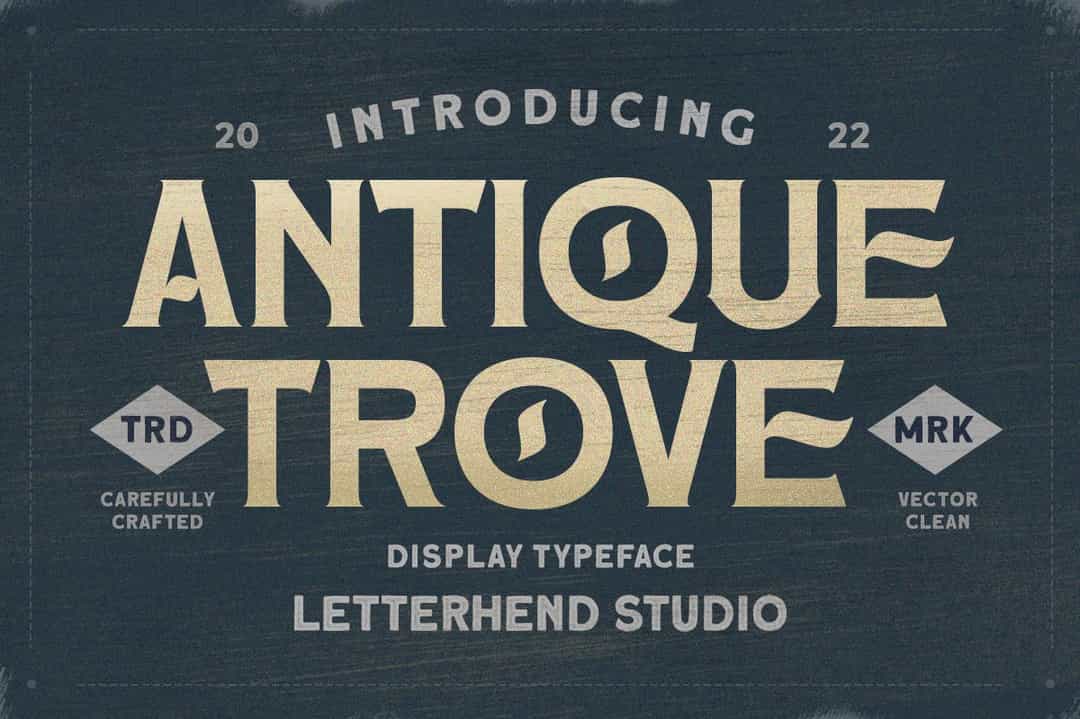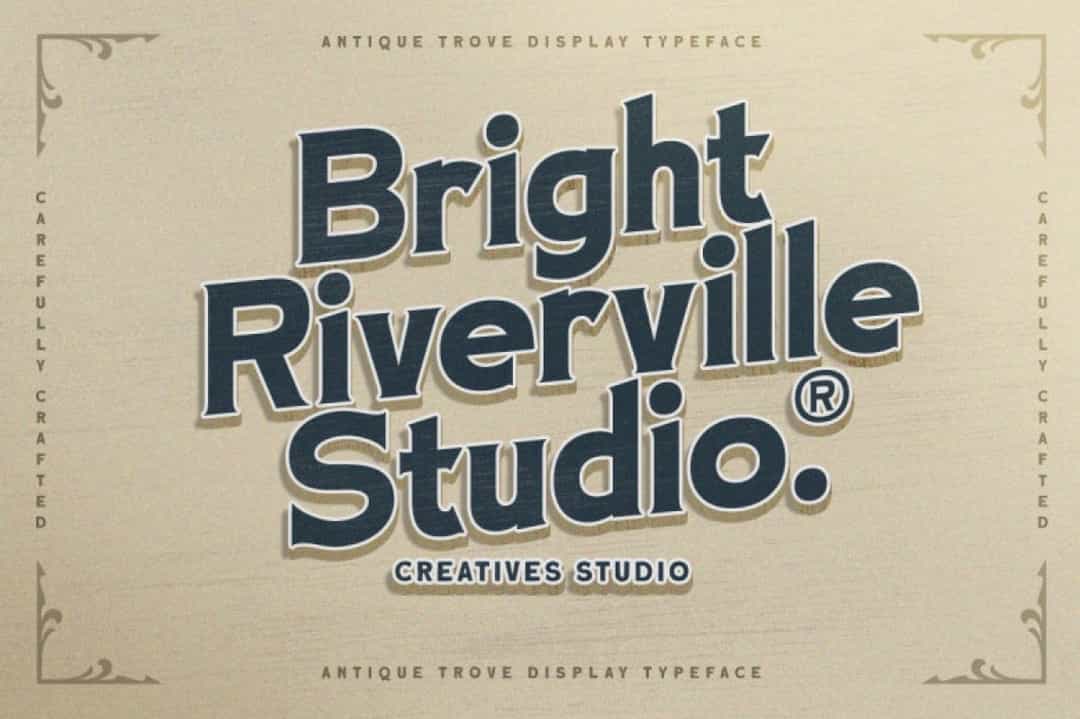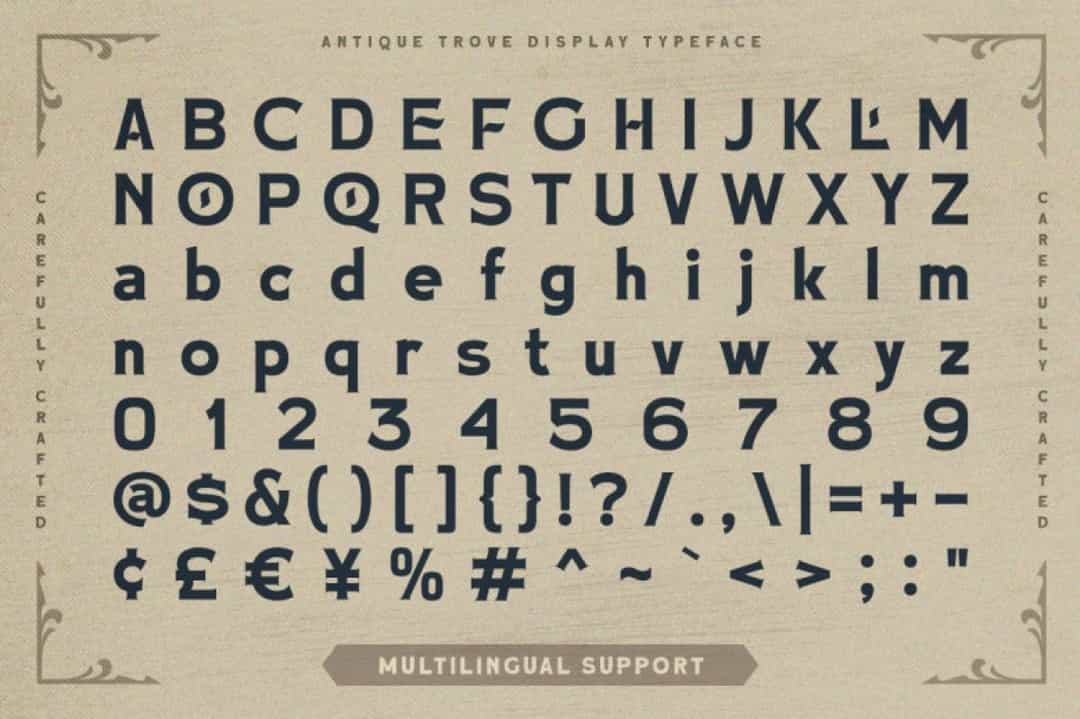
Antique Trove is an old-fashioned font designed to stand out. This typeface stands out in formal applications such as invitations labels logos and magazines books wedding/greeting cards packaging fashion makeup stationery books labels or any other forms of advertisement.